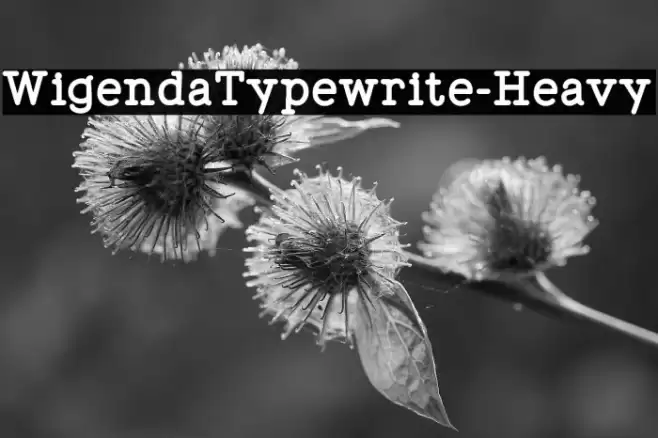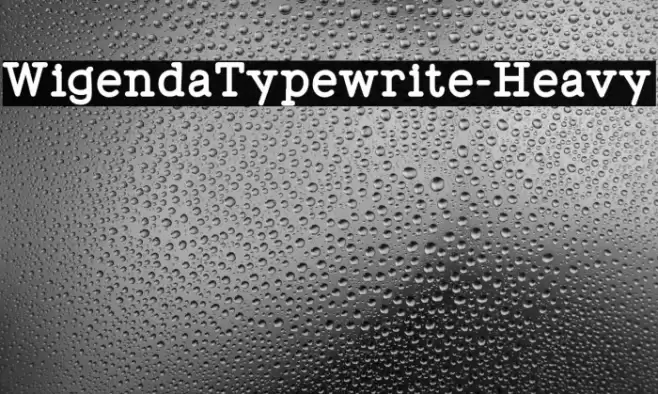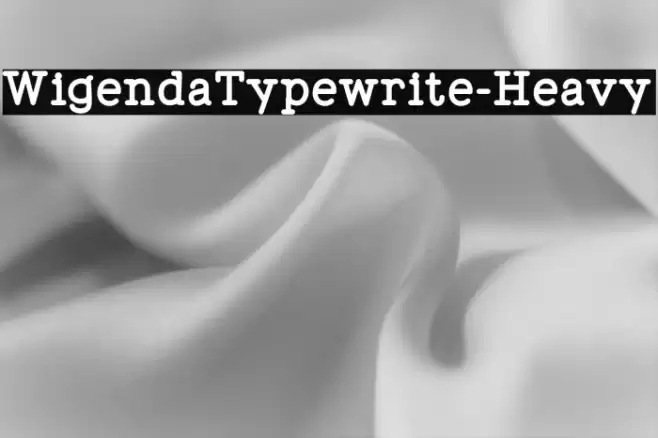
WigendaTypewrite-Heavy Font
WigendaTypewrite-Heavy Description
This font exudes a vintage typewriter charm with its bold, rounded serifs and monospaced letterforms. Each character is distinct, with a consistent weight that gives it a strong presence on the page. The uppercase letters are robust and commanding, while the lowercase letters maintain a uniformity that enhances readability. Numbers and special characters are crafted with the same attention to detail, ensuring a cohesive look across all text. The font's design is reminiscent of classic typewriter fonts, making it ideal for projects that require a touch of nostalgia or a retro aesthetic.
A bold, vintage typewriter-style font with rounded serifs and monospaced characters from Uncategorized fonts.
- Proposed Projects: Perfect for retro-themed designs, typewriter-inspired projects, branding, and editorial layouts.
- Overall Style: Vintage
- Use Case: Headlines, Logos, Editorials